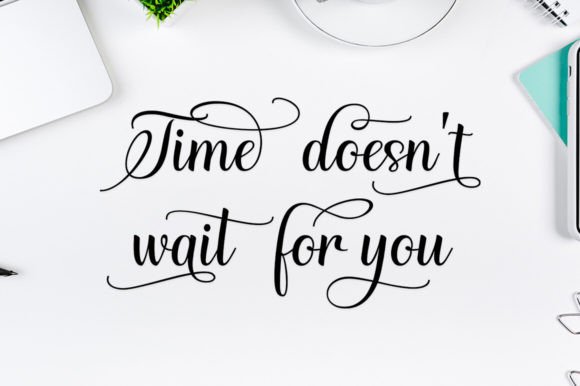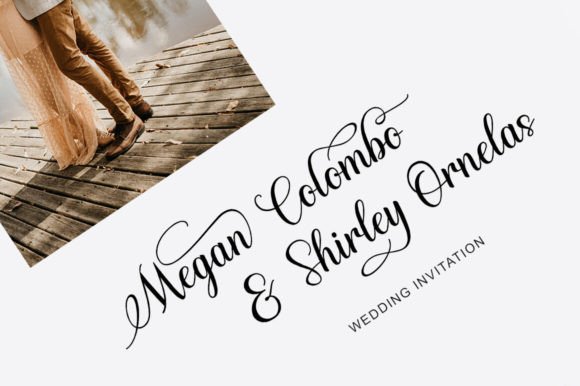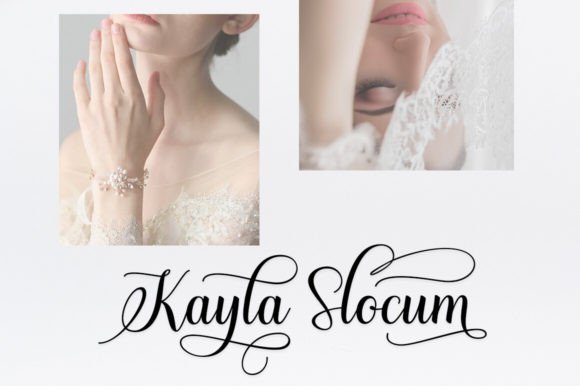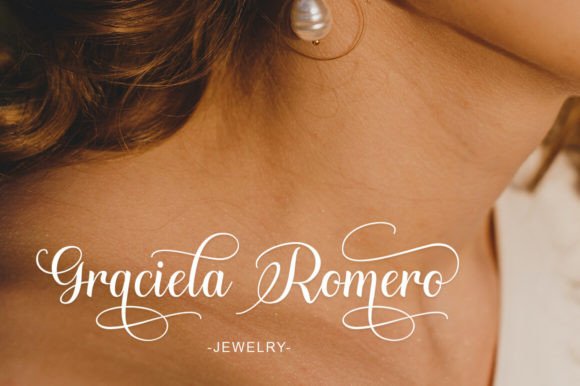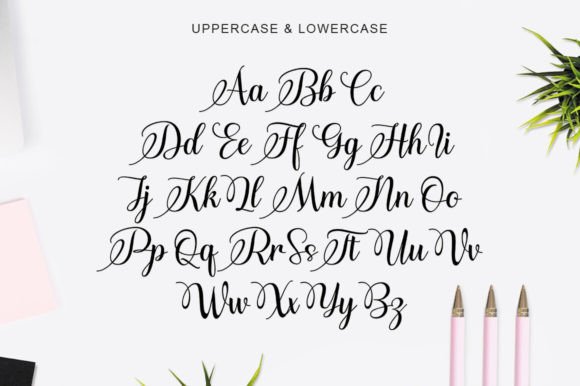
Introducing Blundell Font: A Timeless Handwritten Script for Creative Designs
Are you a designer or crafter looking for a beautiful and timeless handwritten font to elevate your creative projects? Look no further than Blundell Font! This stunning script font is perfect for creating eye-catching logos, brands, and quotes that will leave a lasting impression.
The Beauty of Blundell Script
Blundell Script is a gorgeous handwritten font that exudes elegance and sophistication. Each letter has a unique and beautiful touch, which will make your design come alive! The font’s classic and timeless feel makes it suitable for a wide range of design projects, from modern logos to vintage-inspired crafts.
Key Features of Blundell Font
- PUA Encoded: Blundell Font is PUA (Private Use Area) encoded, which means you can access all the glyphs and swashes with ease. This feature allows you to customize your design and add a personal touch to your projects.
- Unique Letterforms: Each letter in Blundell Script has a distinct and beautiful design, making it perfect for creating eye-catching logos and brands.
- Timeless Appeal: The font’s classic feel ensures that your design will remain stylish and relevant for years to come.
- Versatile: Blundell Font is suitable for a wide range of design projects, including logos, branding, quotes, and more.
Why Choose Blundell Font?
With so many fonts available, why choose Blundell Font for your design projects? Here are just a few reasons:
- Ease of Use: Blundell Font is easy to use and customize, even for designers who are new to working with handwritten fonts.
- High-Quality Design: The font is designed with high-quality and clarity in mind, ensuring that your design looks professional and polished.
- Unique Style: Blundell Script has a unique and distinctive style that will set your design apart from the crowd.
Using Blundell Font in Your Design Projects
Blundell Font is perfect for a wide range of design projects, including:
- Logo Design: Create a stunning logo for your business or brand with Blundell Script.
- Branding: Use Blundell Font to create a consistent and recognizable brand identity.
- Quotes and Posters: Add a touch of elegance to your quotes and posters with Blundell Script.
- Crafting: Use Blundell Font to add a personal touch to your crafting projects, such as handmade cards and gift tags.
Tips and Tricks for Working with Blundell Font
Here are a few tips and tricks for getting the most out of Blundell Font:
- Experiment with Swashes: Use the swashes and glyphs in Blundell Font to add a personal touch to your design.
- Mix and Match: Combine Blundell Script with other fonts to create a unique and eye-catching design.
- Pay Attention to Kerning: Make sure to adjust the kerning to ensure that your text looks professional and polished.
Blundell Font is a beautiful and timeless handwritten script that is perfect for designers and crafters looking to elevate their creative projects. With its unique letterforms, PUA encoding, and timeless appeal, Blundell Script is the perfect choice for creating eye-catching logos, brands, and quotes. Whether you’re a seasoned designer or just starting out, Blundell Font is sure to become a favorite in your design arsenal.